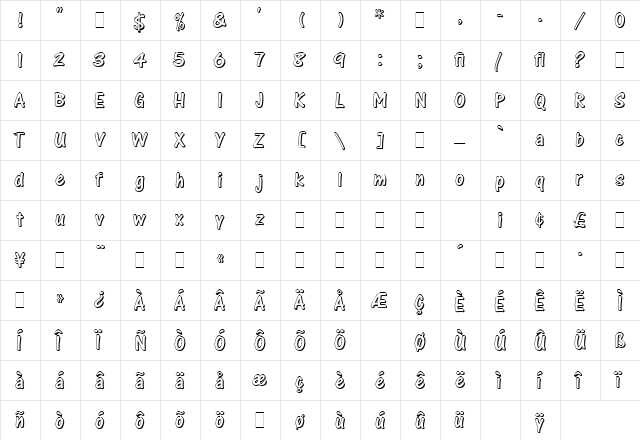
One Stroke Script Shaded LET Plain
Design Context for One Stroke Script Shaded LET Typeface
One Stroke Script Shaded LET flows with the natural rhythm of handwritten lettering, making it ideal for designs that call for warmth and personal expression.
Font Pairing: Combine One Stroke Script Shaded LET with a simple geometric sans for maximum contrast — the tension between flowing curves and clean structure is a classic typographic pairing.
Pro Tip: Pair One Stroke Script Shaded LET with a clean sans-serif for supporting text. The contrast between fluid script and geometric structure creates an elegant typographic hierarchy.